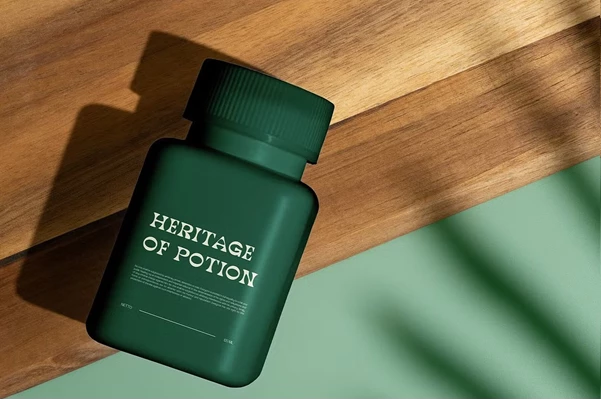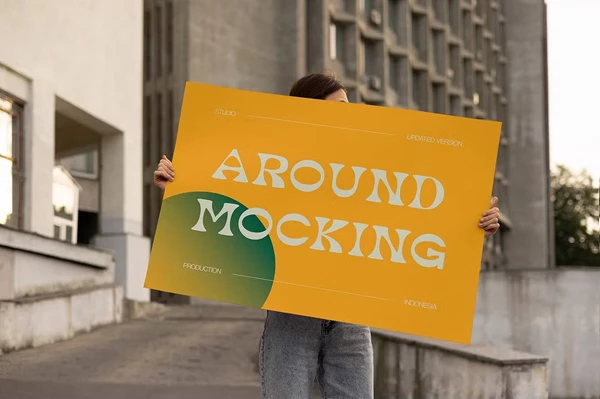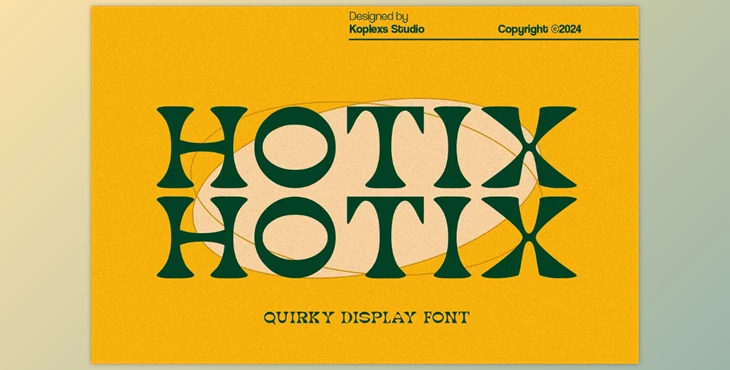
Hotix - Quirky Display Font:
Utilizing a delightful and eye-catching Hotix font makes posters and logos stand out, and Hotix's eye-capturing readability makes it usable for anything from social media to packaging. That makes Hotix blend with multiple projects seamlessly while its dynamic character provides a strong and distinct feel, aiding designers who wish to create a lasting imprint.
Some great features of Hotix - Quirky Display Font:
- Dynamic Letter Forms and Curves: Vivid letter form styles coupled with the stylish and energetic letter forms of Hotix guarantee a lot of energy.
- Trendy Retro Design: An effortless combination of retro and modern style.
- Marked without Style: Bold visual communication messages styled with Hotix remain notable yet stylish on posters and documents.
- Highly energetic visuals form the bold, readable letters with rhythm and flair Hotix effortlessly provides.
"Hotix - Quirky Display Font" Samples: